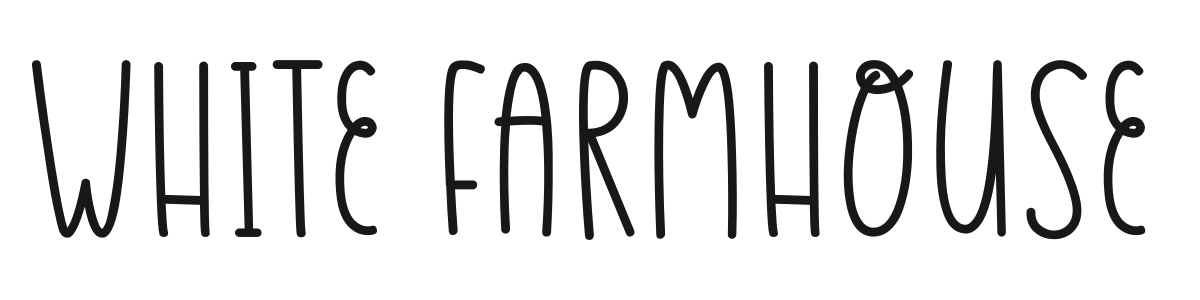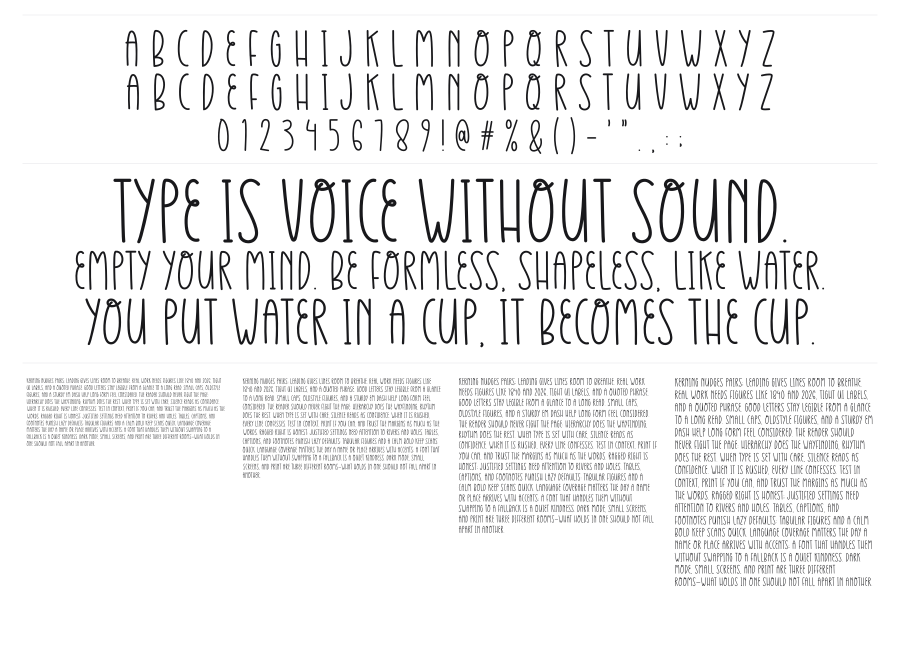
White Farmhouse
by Letter Art Studio
White Farmhouse is a hand-drawn sans-serif with tall, narrow characters and a charmingly irregular feel. Subtle stroke wobbles and rounded terminals give it the warmth of hand-lettered signage without losing legibility at headline sizes. It suits artisan brands, rustic packaging, and anything that wants a homespun, crafted personality.